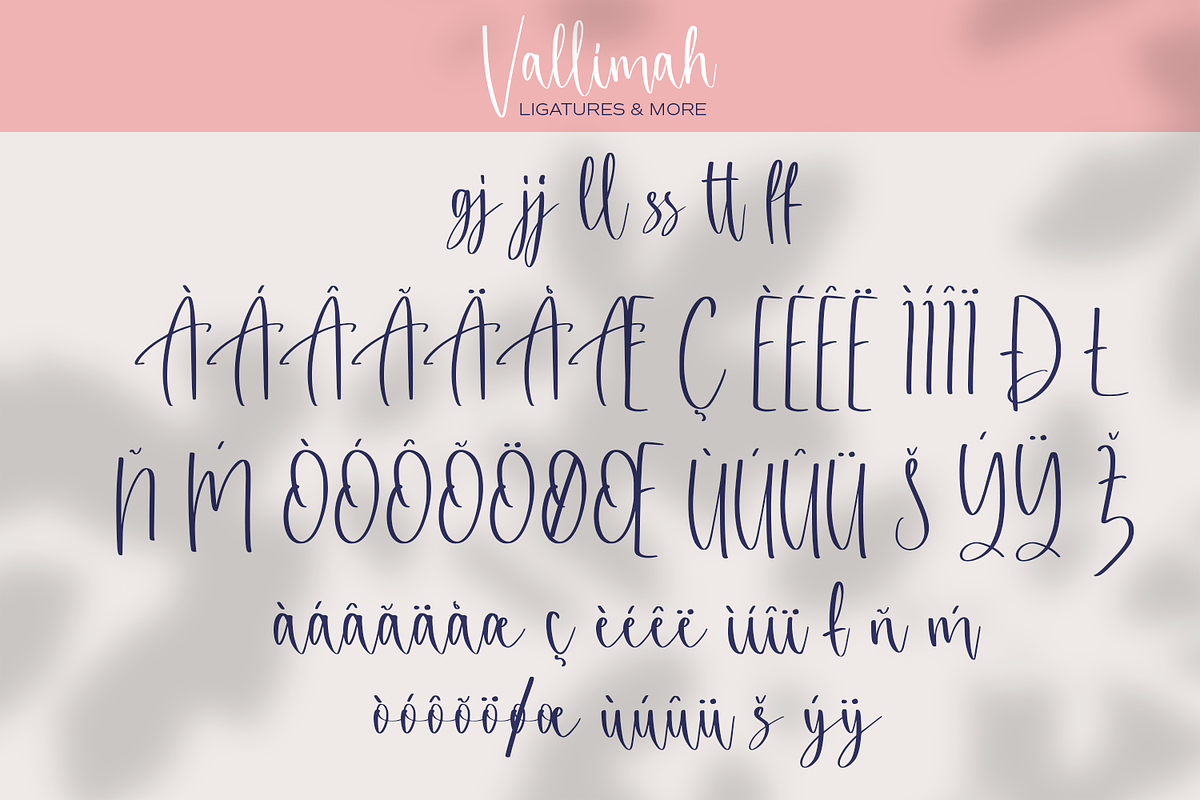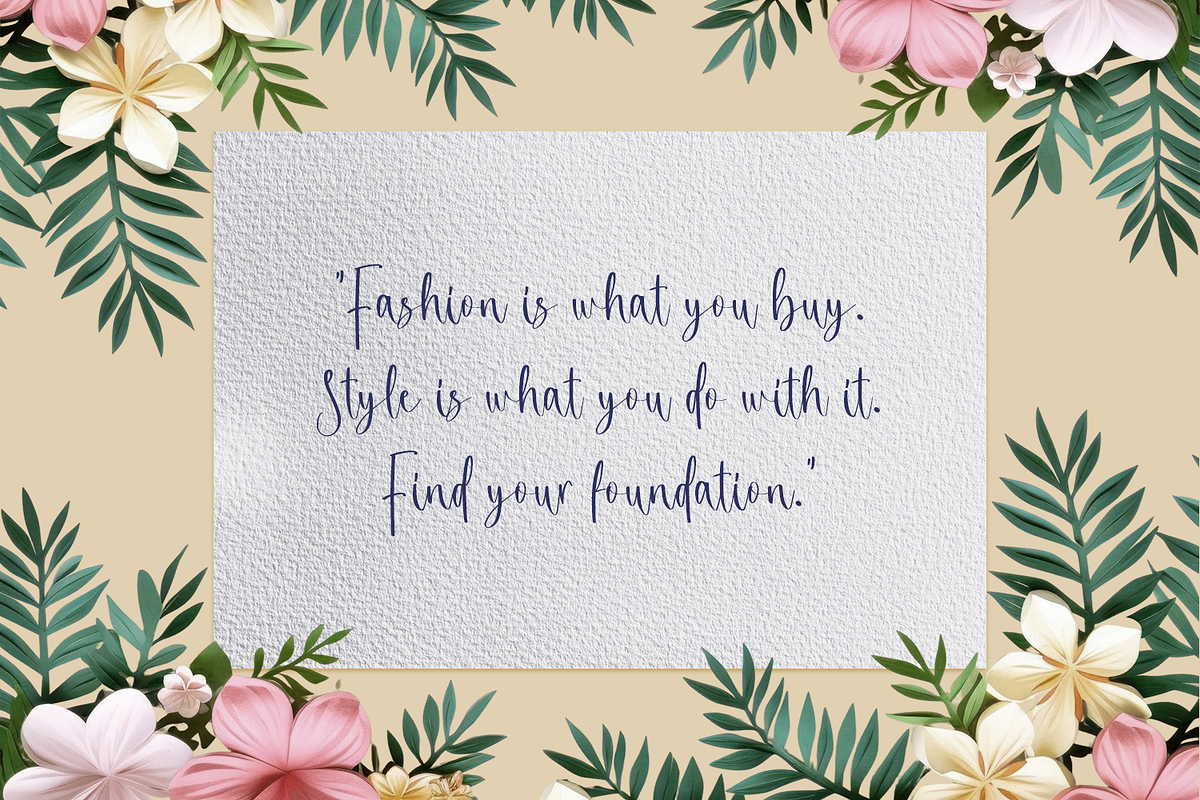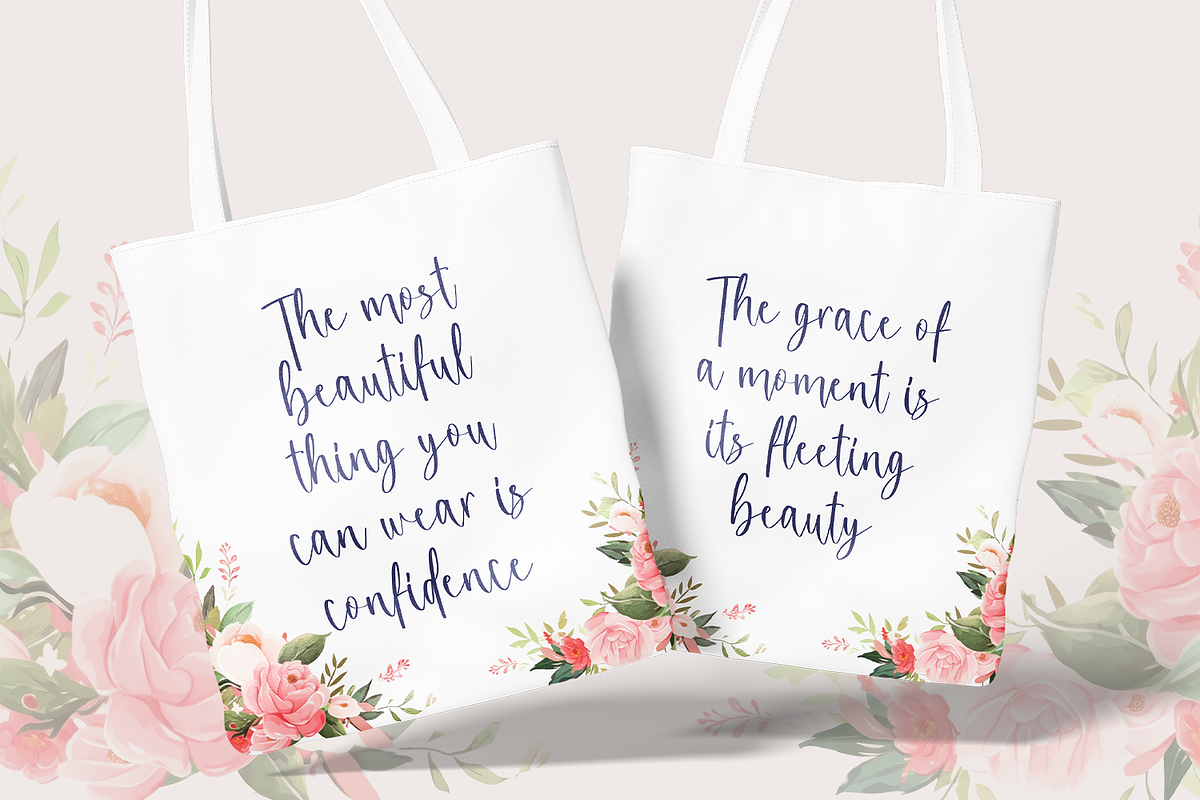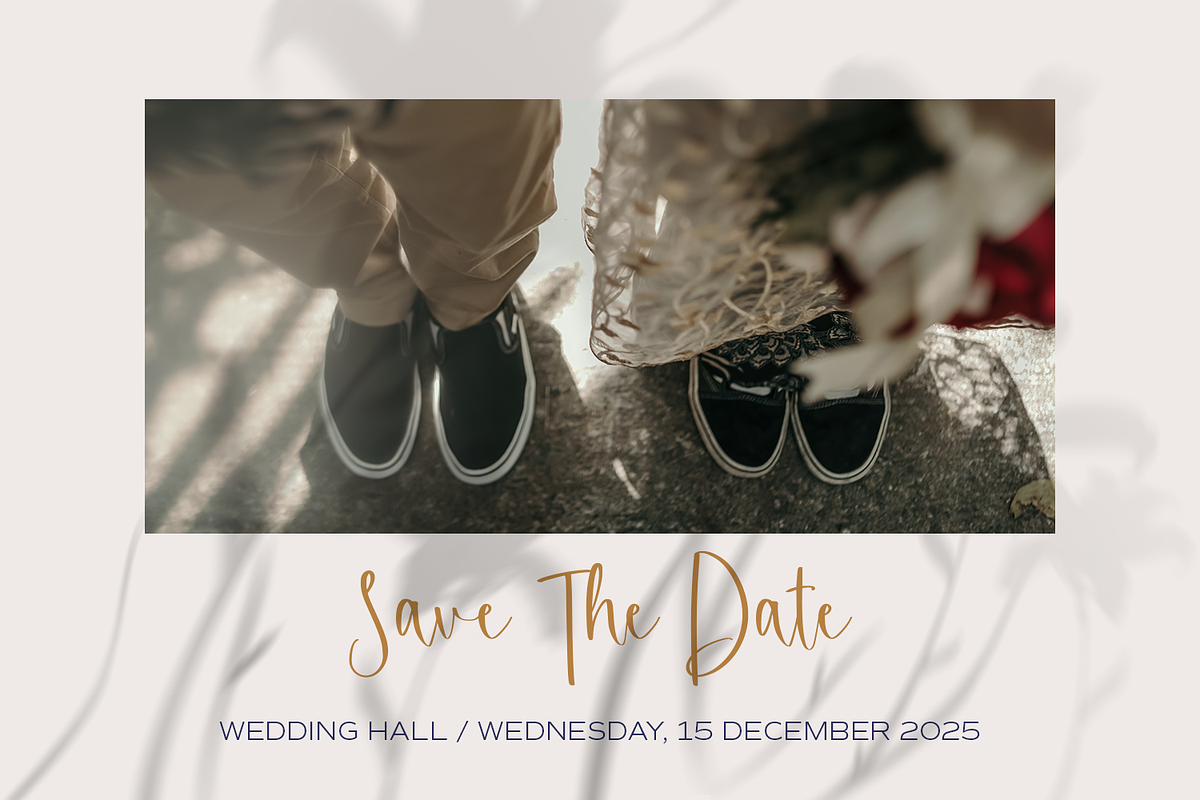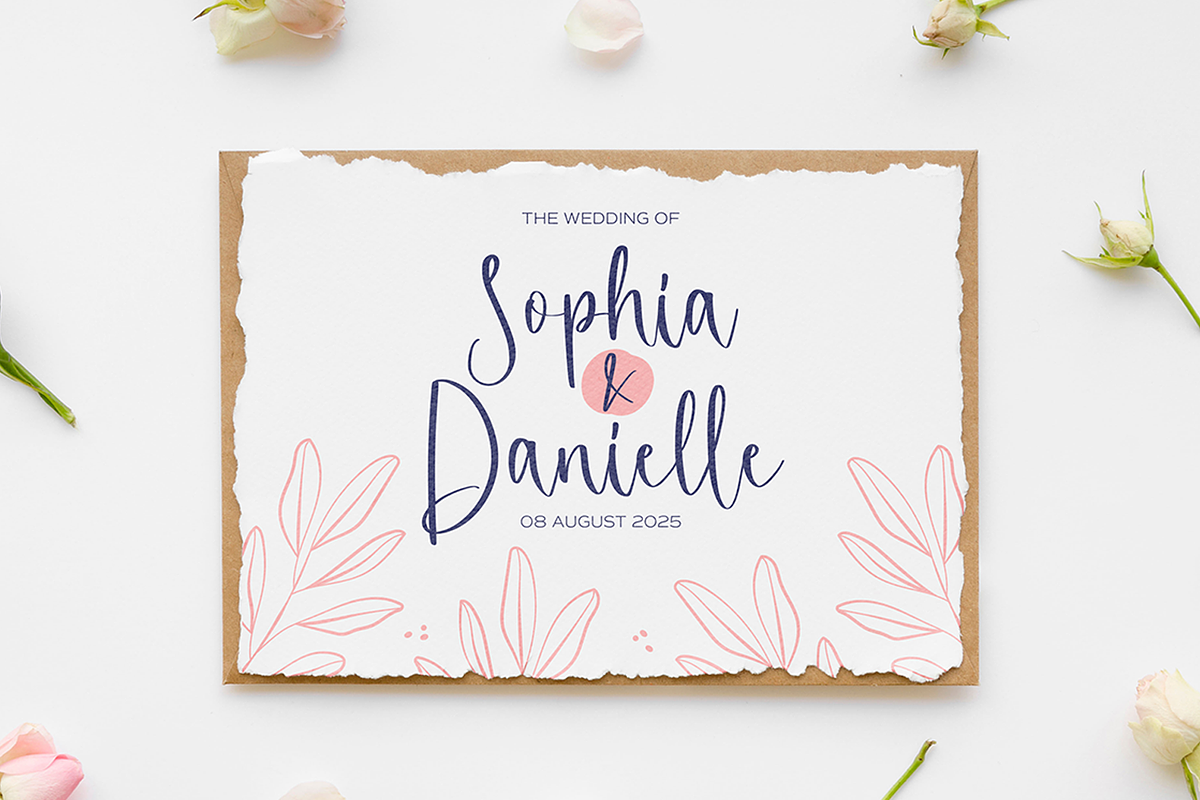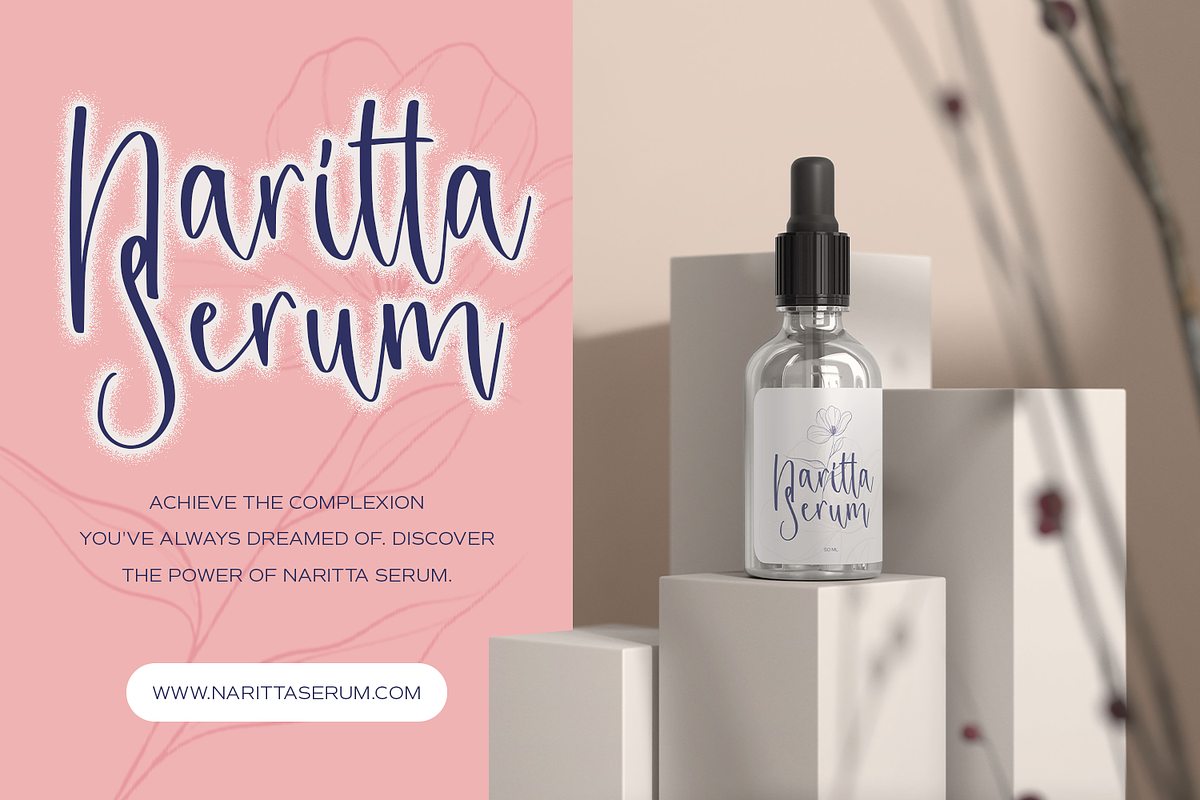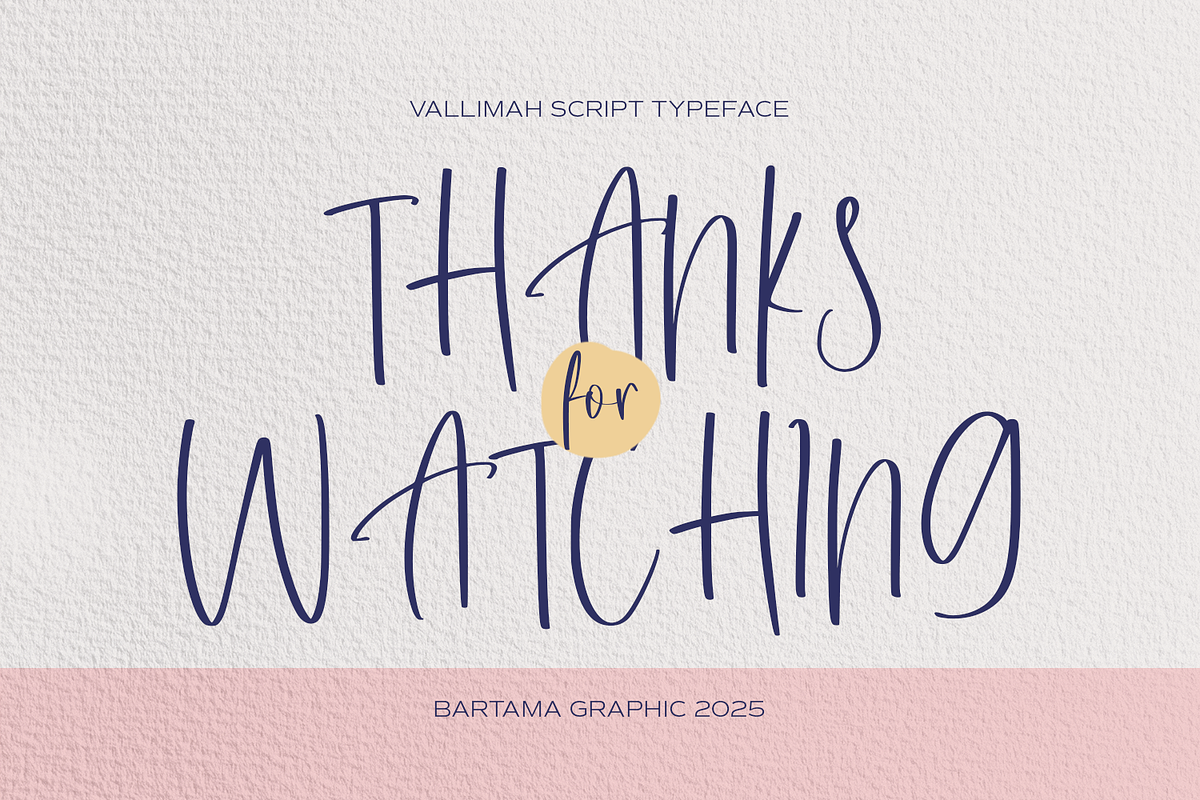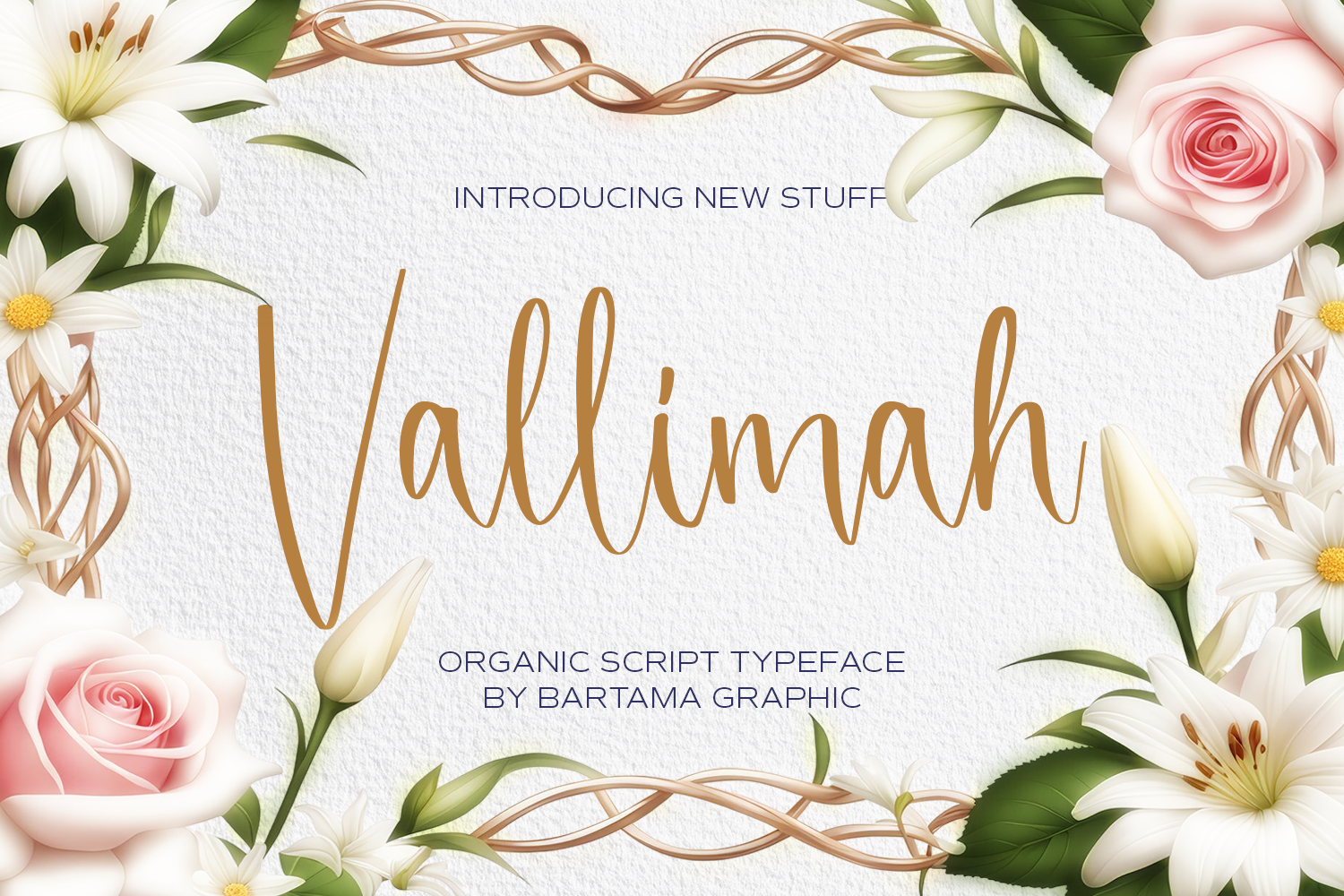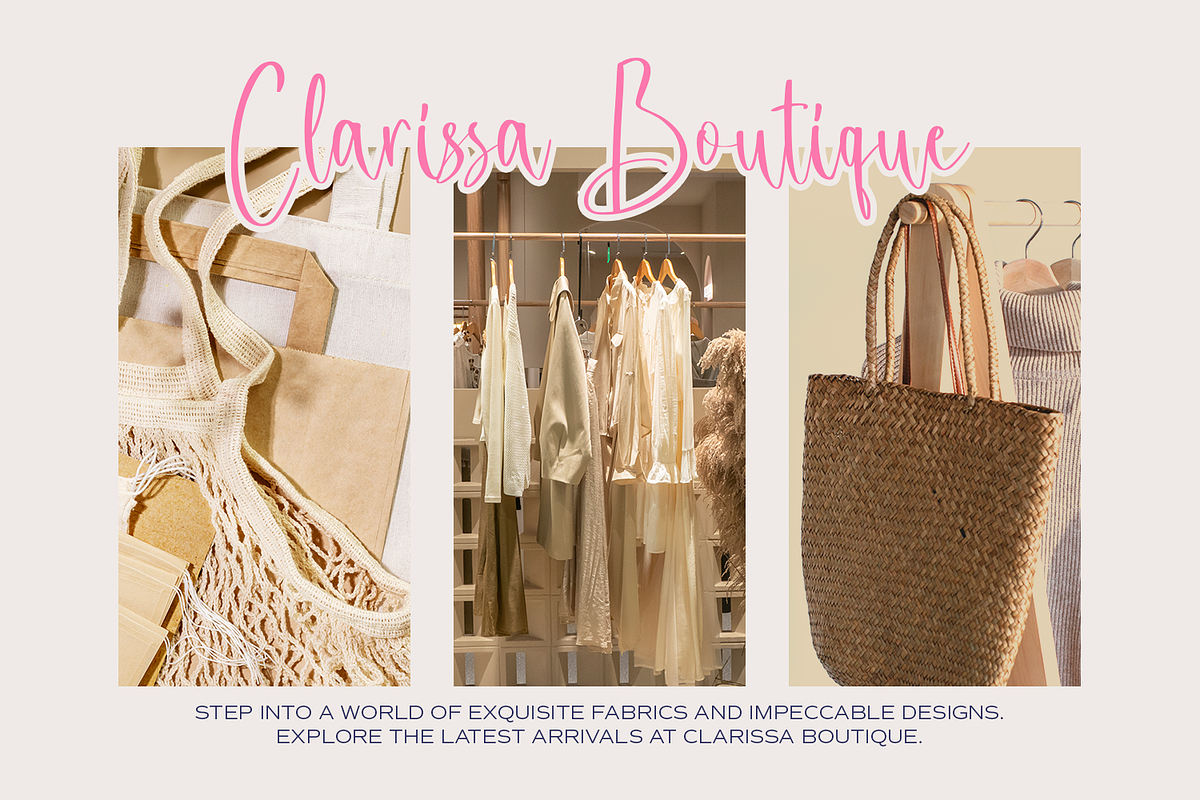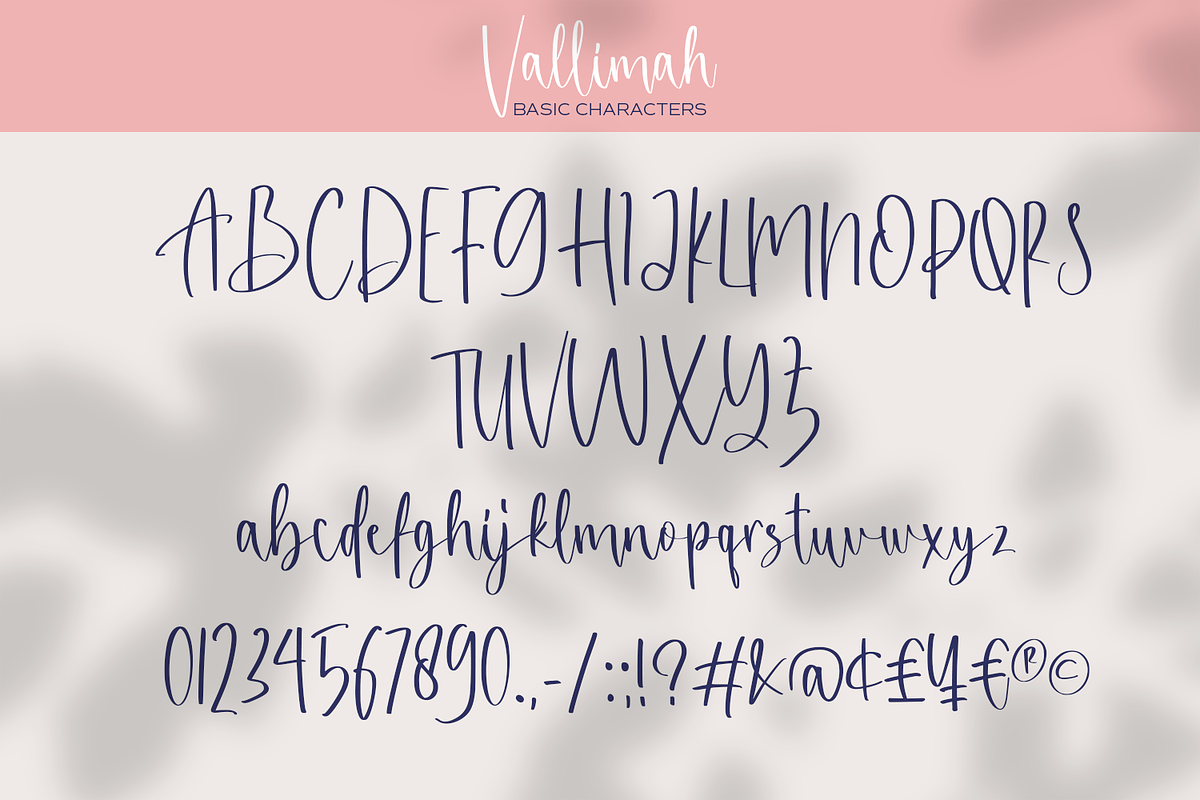
Vallimah - Organic Script Font
Vallimah is an organic script font. This font is very playful, so you can use this font for wedding invitation, poster, product labeling or packaging, quotes, logo, and other projects you create.